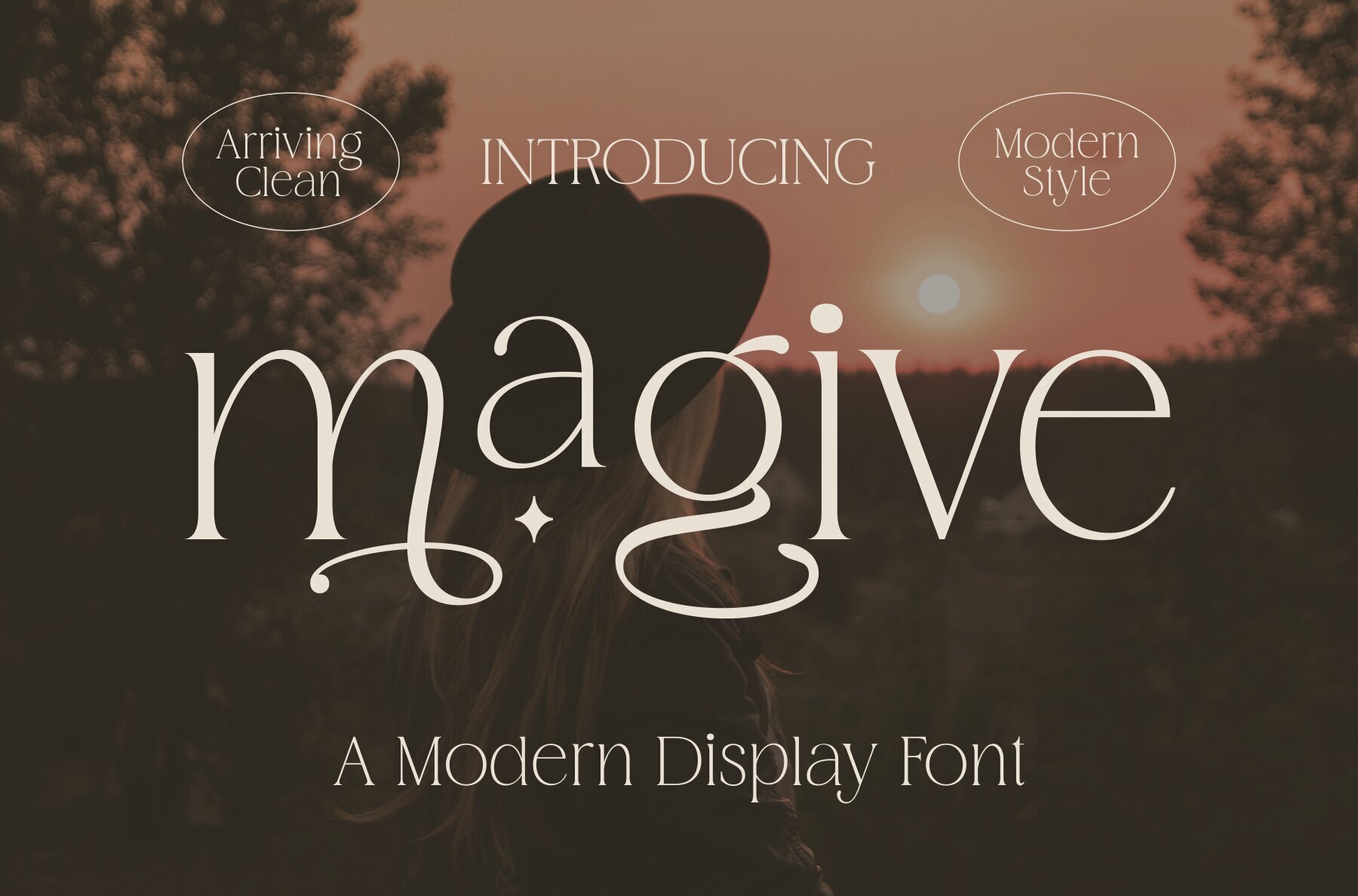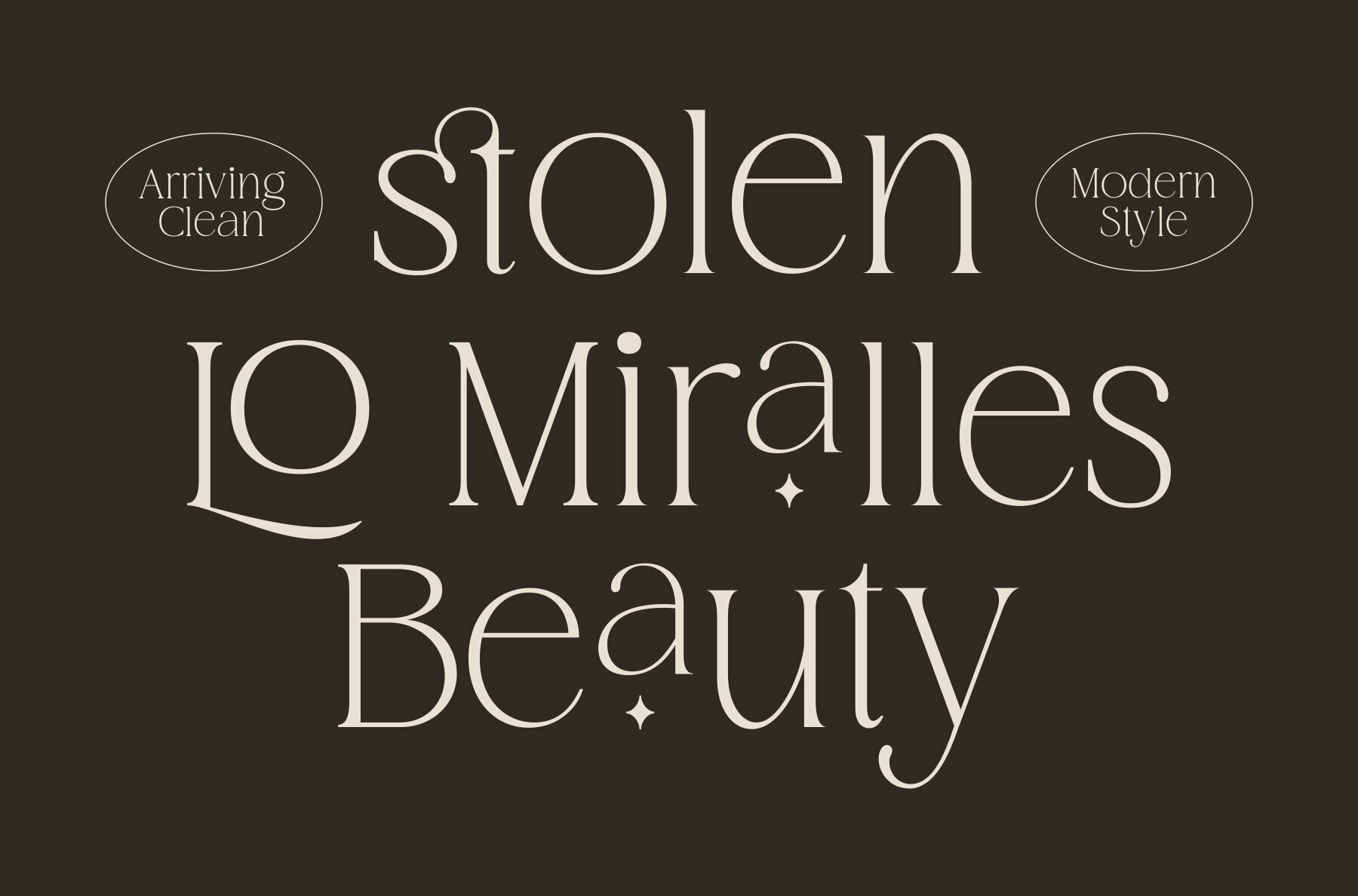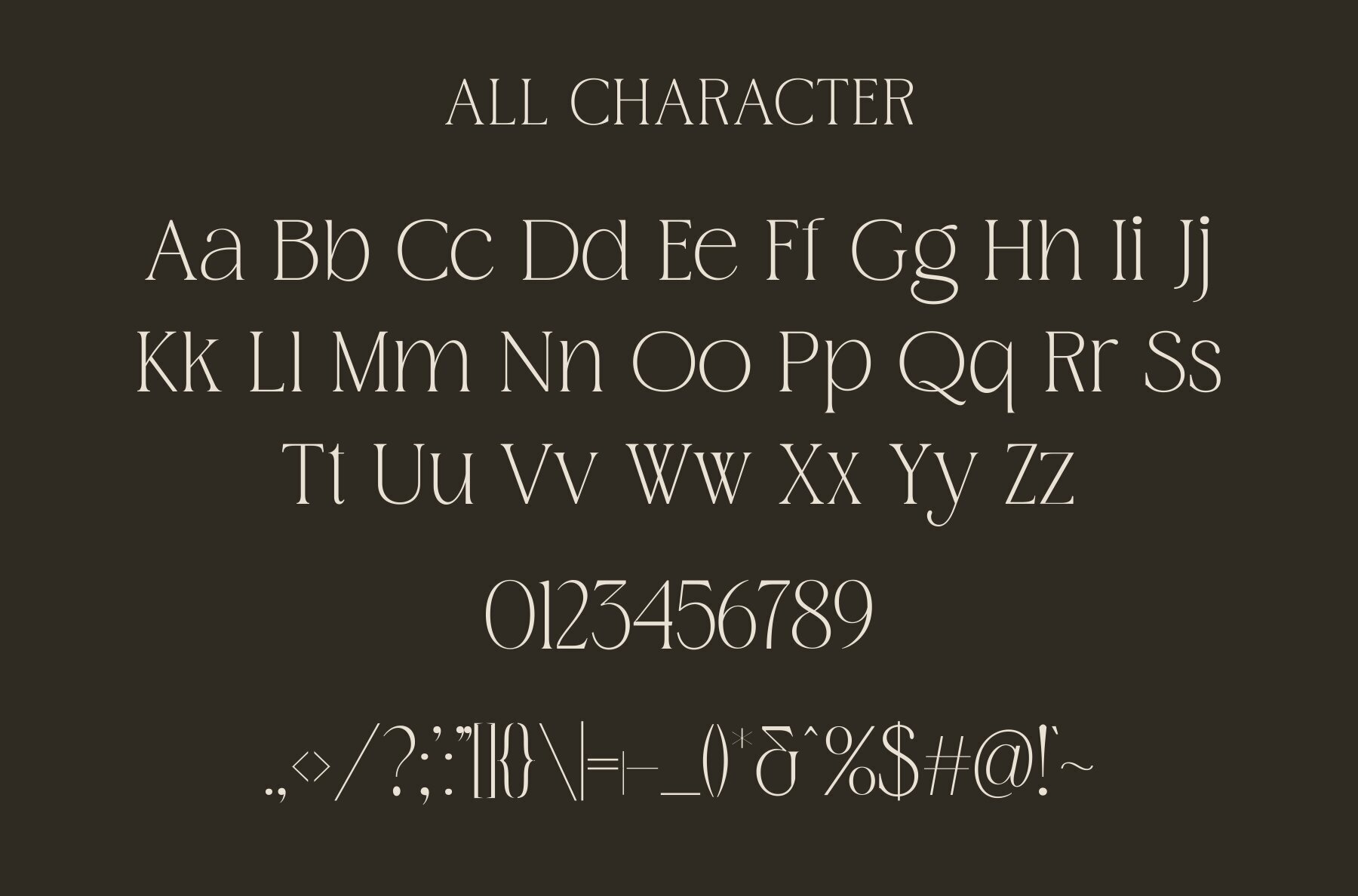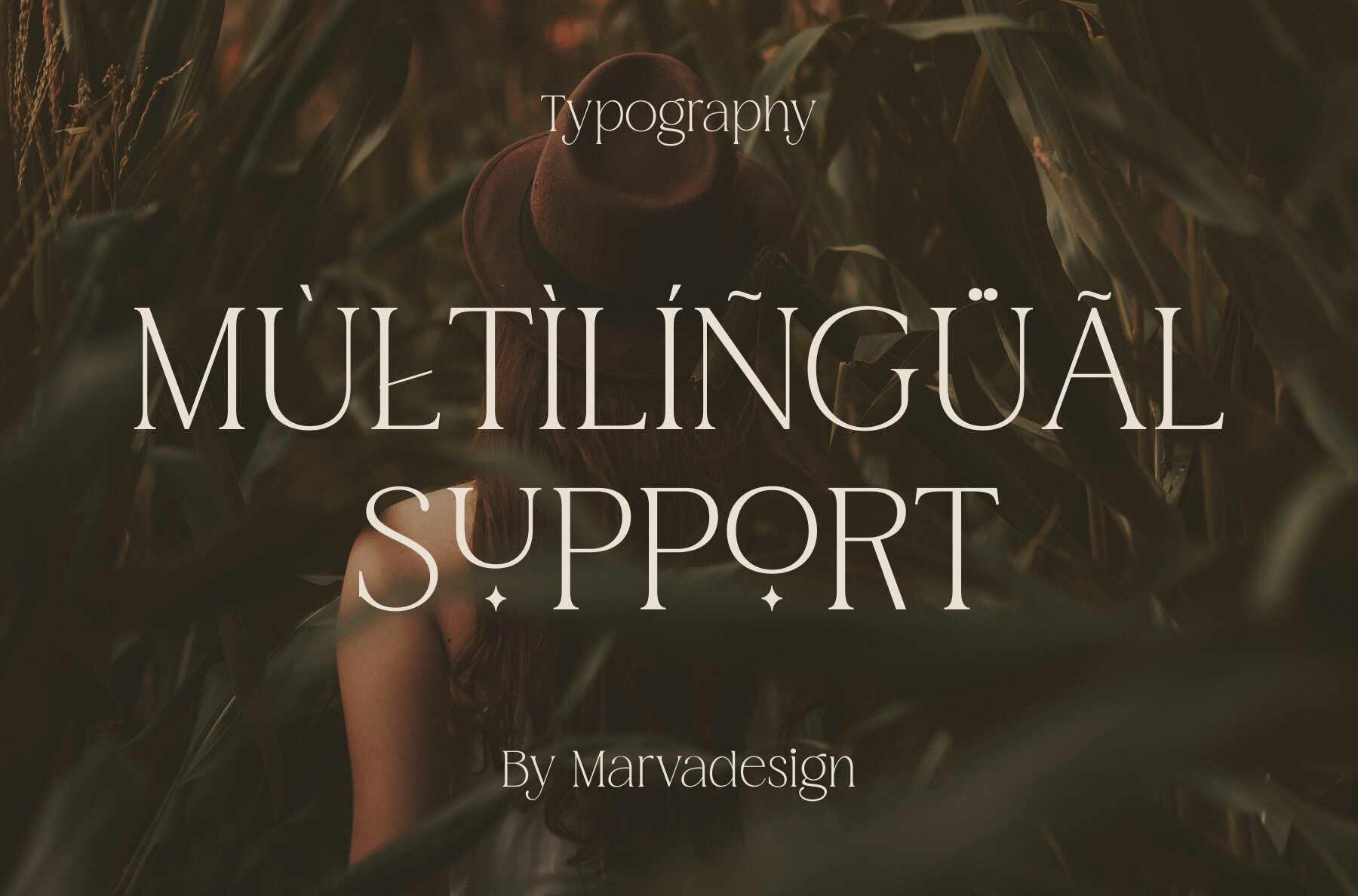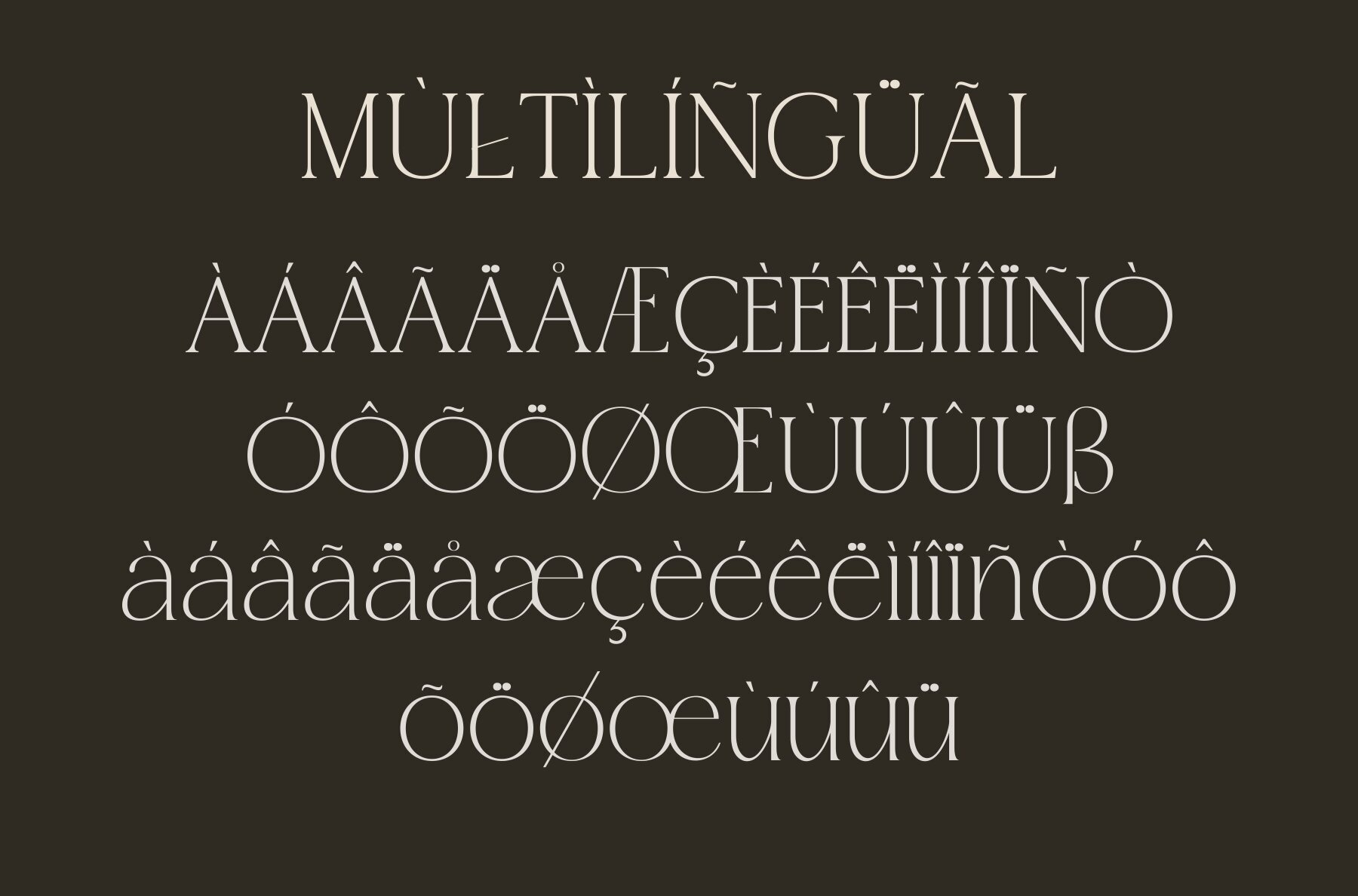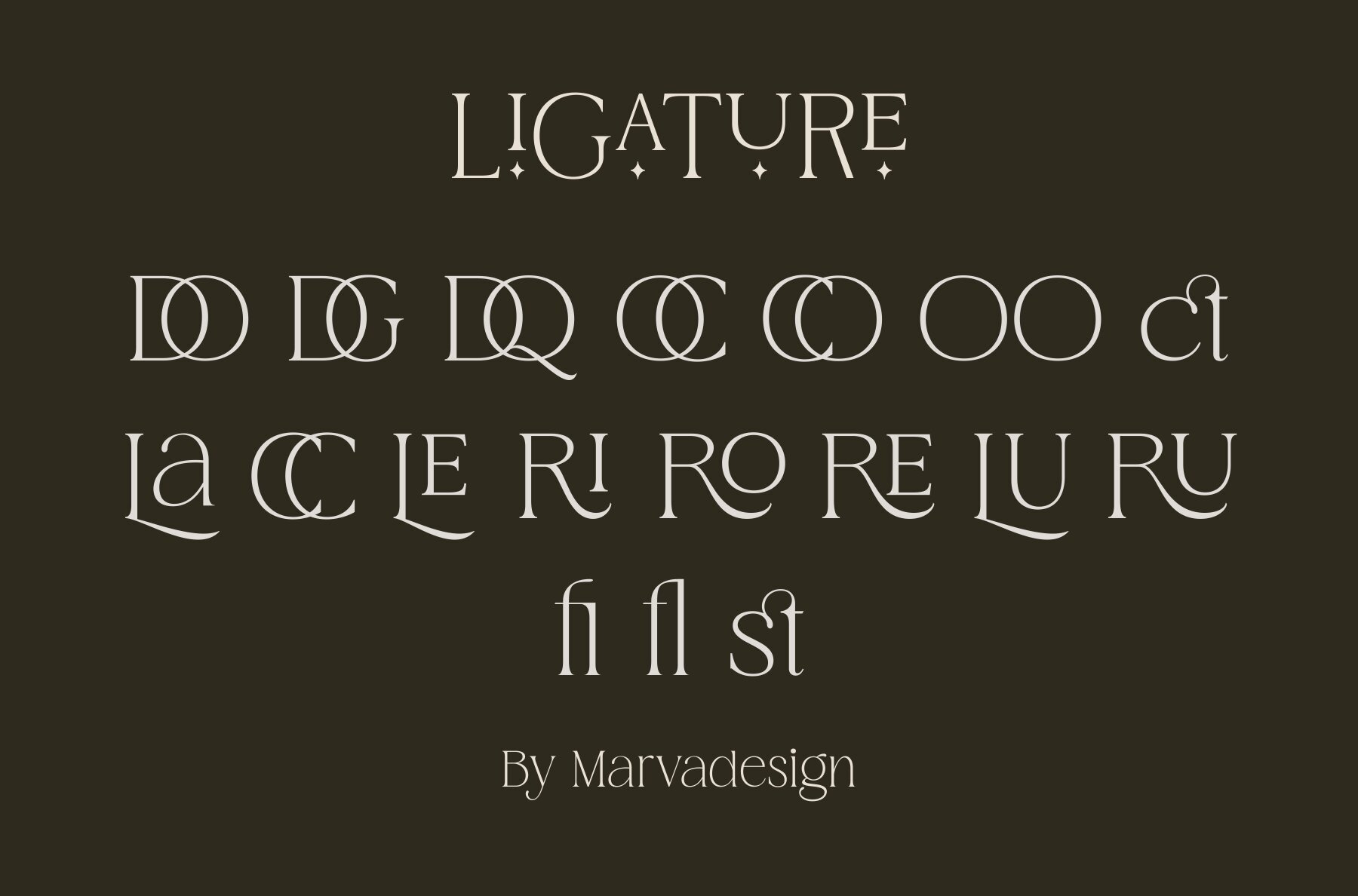
Magive Font
Introducing "Magive Font" - a bold and authentic Modern Font perfect for branding projects like logos, template designs, products, and more. It's designed to stand out in a multitude of contexts. The font package includes uppercase and lowercase characters, alternates, ligatures, and supports multiple languages. Make a bold statement with Magive Font.